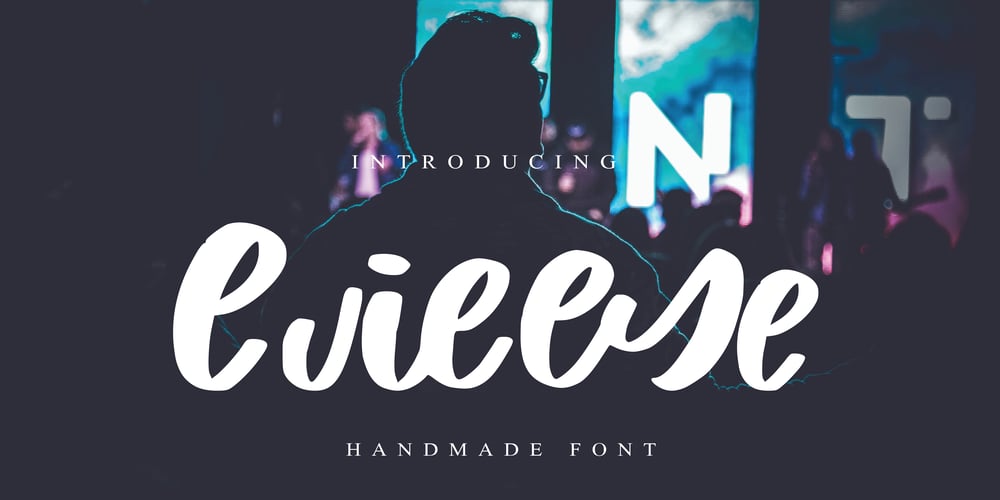
Evil Eye Font Family was designed by Mariyana and published by Goodigital13. Evil Eye contains 1 styles and family package options. Suitable for various media, posters, banners, brochures, and various merchandising such as t-shirts, totte bags, stickers and much more perfect for display such as label, apparel, fashion, sticker, books, poster, and many more! Complete with OpenType features.